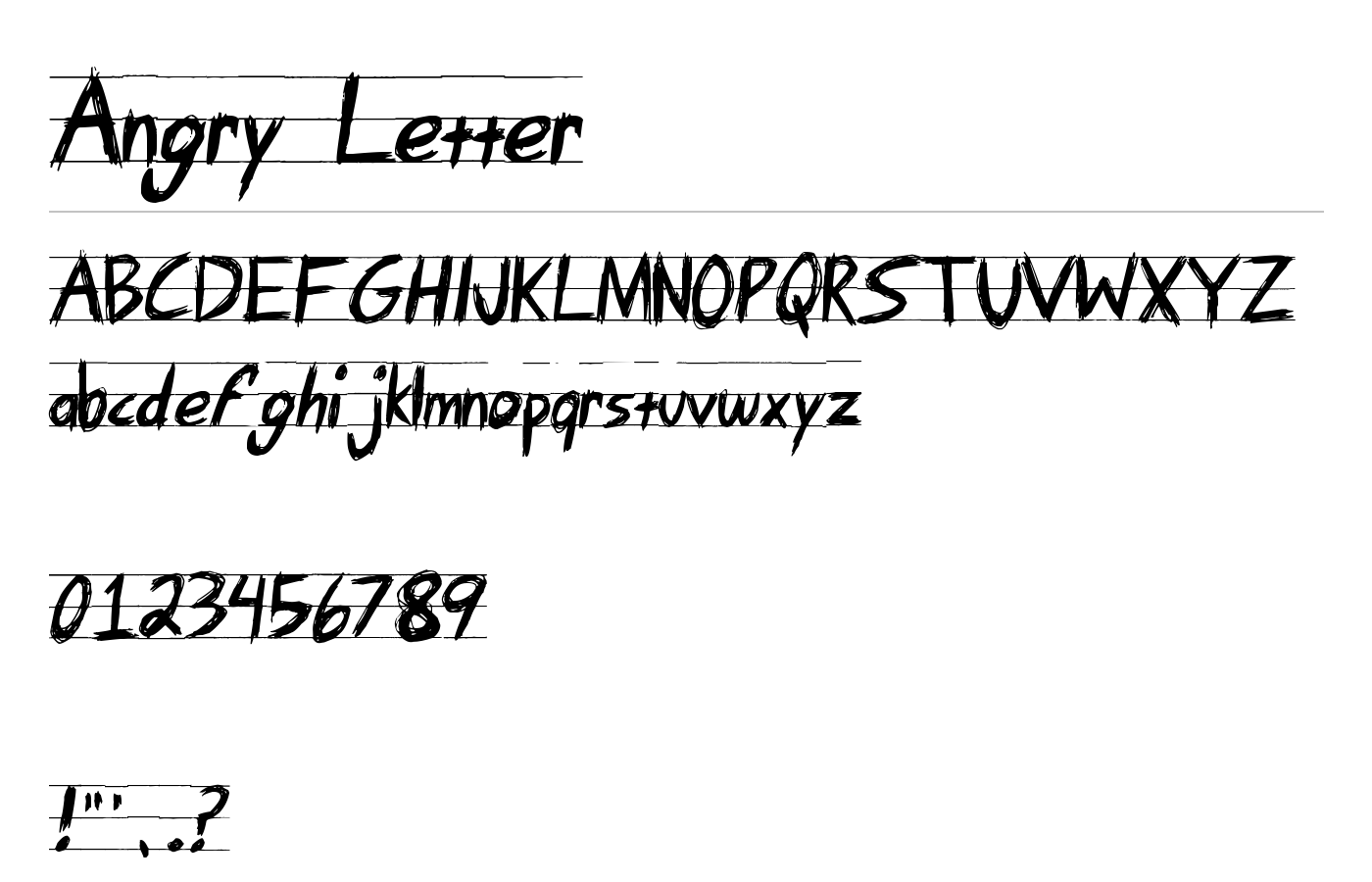
Angry Letter Font is a bold, hand-drawn script with jagged edges and uneven strokes that give it a raw, edgy feel. Its rough texture and irregular shapes create a sense of intensity and energy, making it perfect for designs that want to convey emotion, rebellion, or a gritty attitude. This font works well for posters, album covers, and edgy branding where strong, expressive impact is needed.
Angry Letter Font
About Angry Letter Font